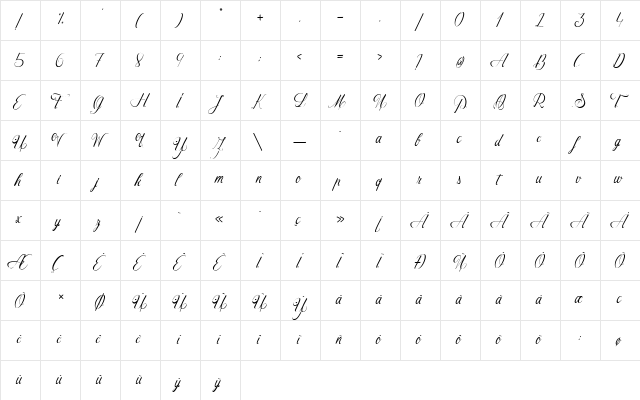
Question and Love Italic
Design Context for Question and Love Typeface
Question and Love is a composed and adaptable typeface that performs quietly and consistently across a wide range of design contexts. The dynamic lean of this cut emphasises speed and emphasis in any layout.
Pro Tip: Try Question and Love for annotation and caption copy alongside an upright companion — the contrast in angle creates a dynamic but ordered typographic system.